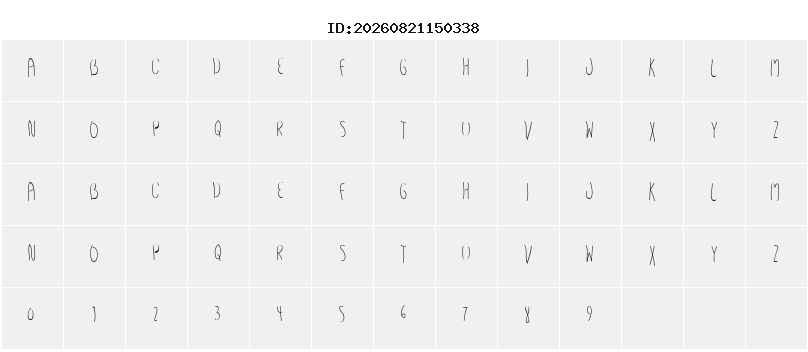
Scumbucket Preview
• Font Name: Scumbucket
• Full Font Name: Scumbucket
About Scumbucket.ttf
Scumbucket.ttf is a modern, elegant sans-serif font designed for ultimate readability and visual harmony. Perfect for branding, headlines, web design, and print materials.